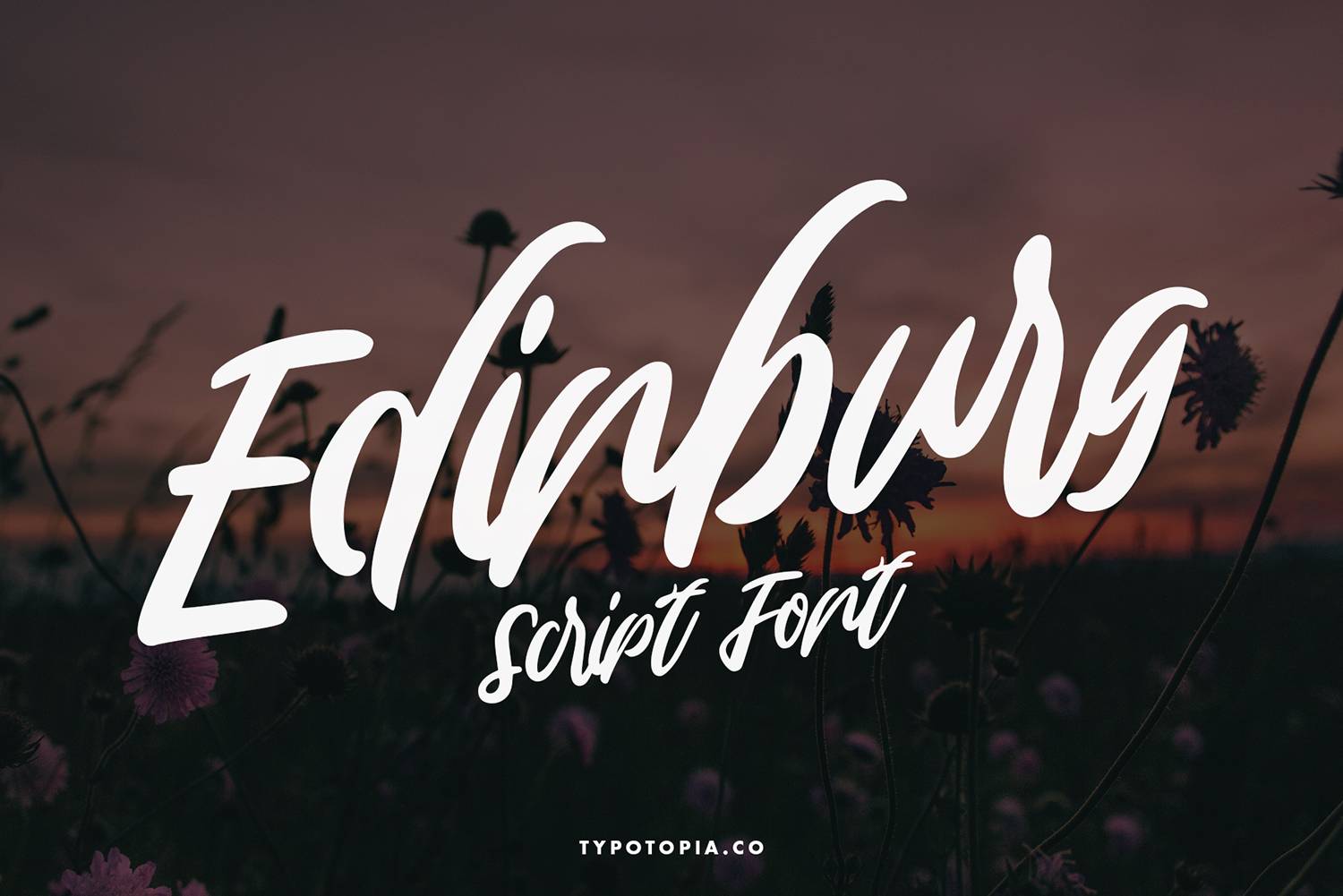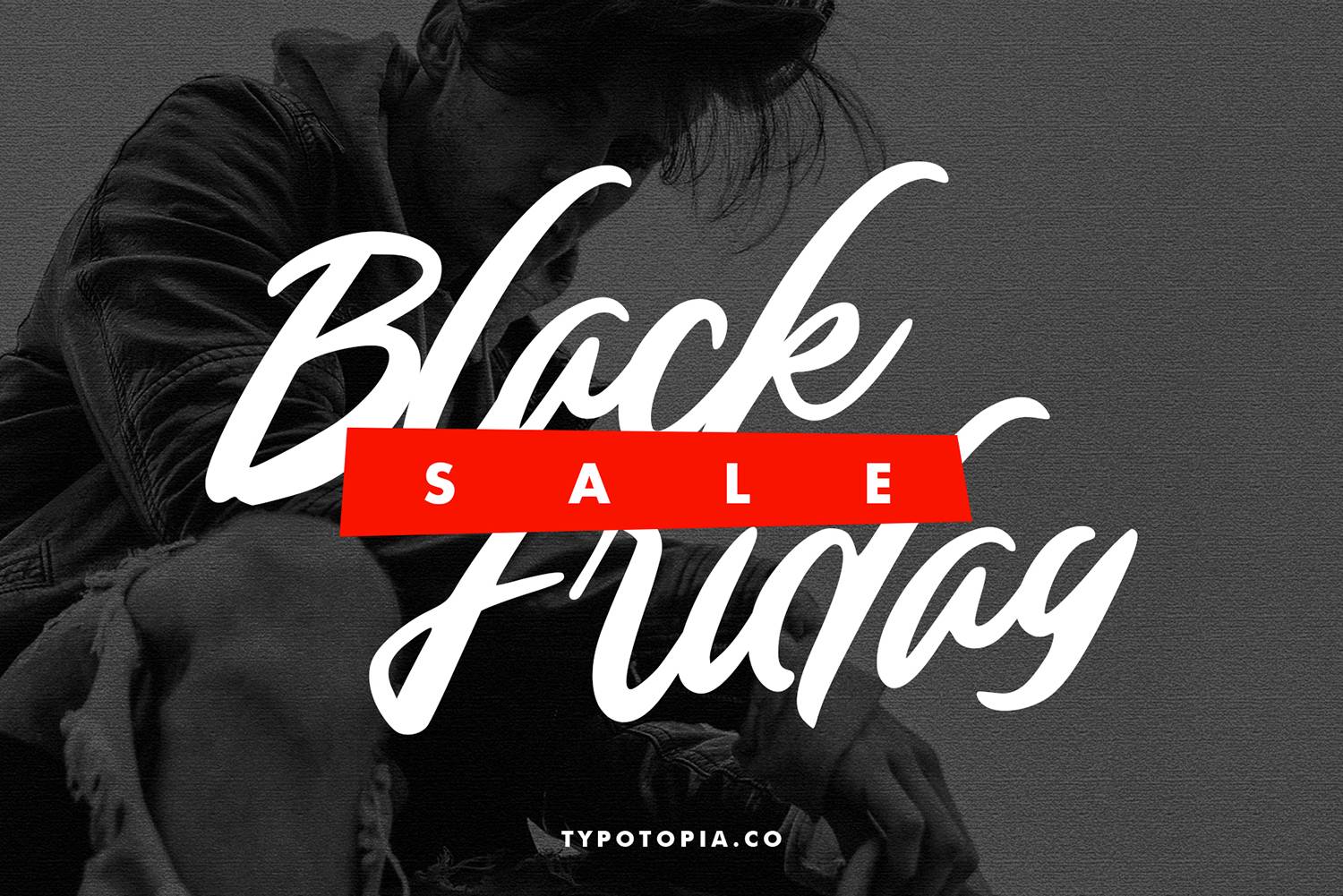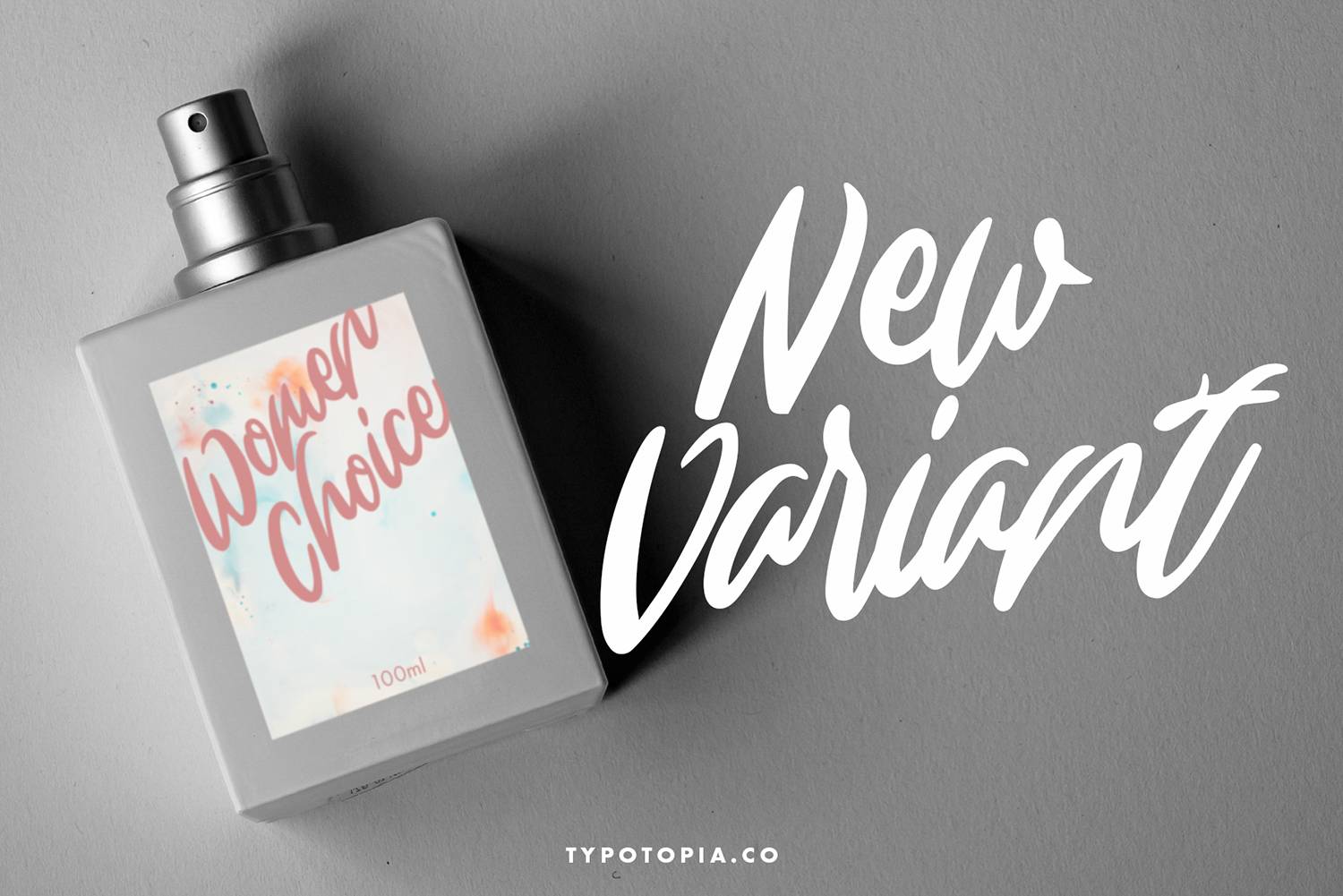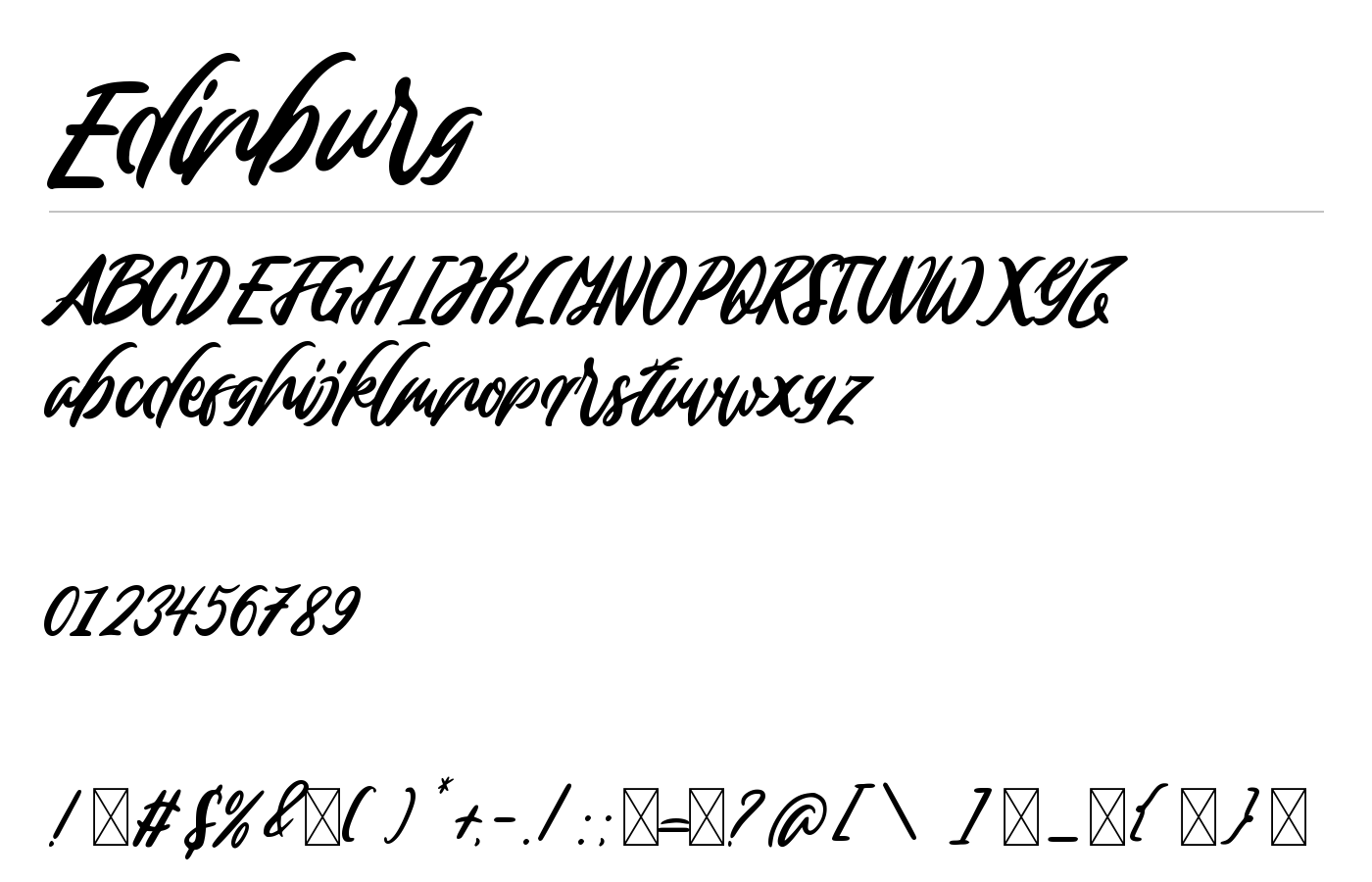
Edinburg is a lively, script-style font characterized by its smooth, flowing strokes and elegant, handwritten feel. It features a medium weight with a slightly condensed width and a natural slant, making it perfect for adding a personal, stylish touch to branding, invitations, and headlines. This font’s casual yet refined personality works well in creative projects that seek a warm and approachable look.
Edinburg Font
About Edinburg Font